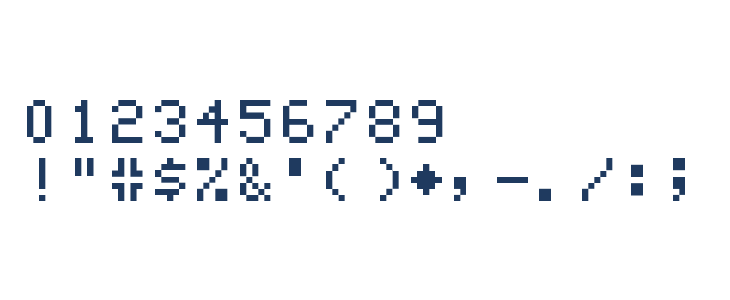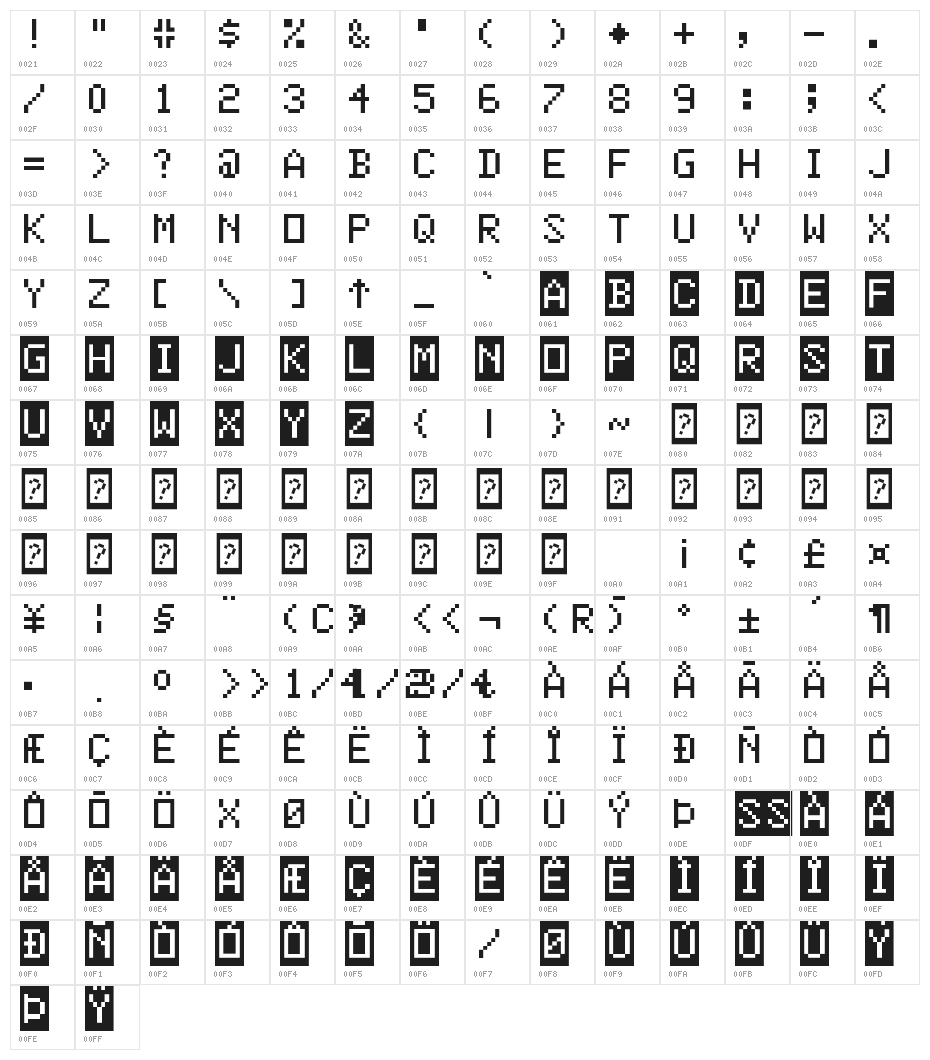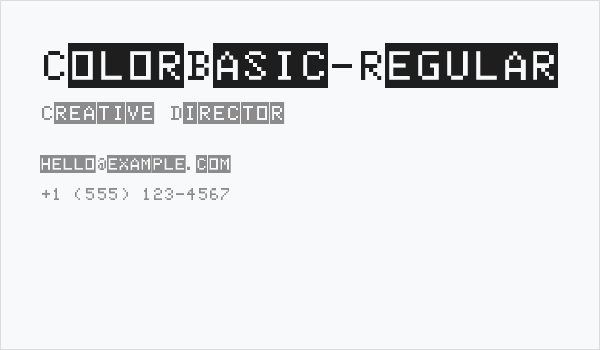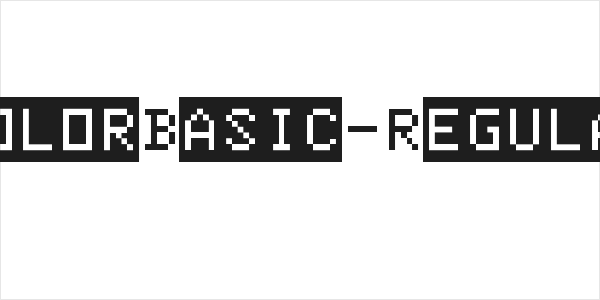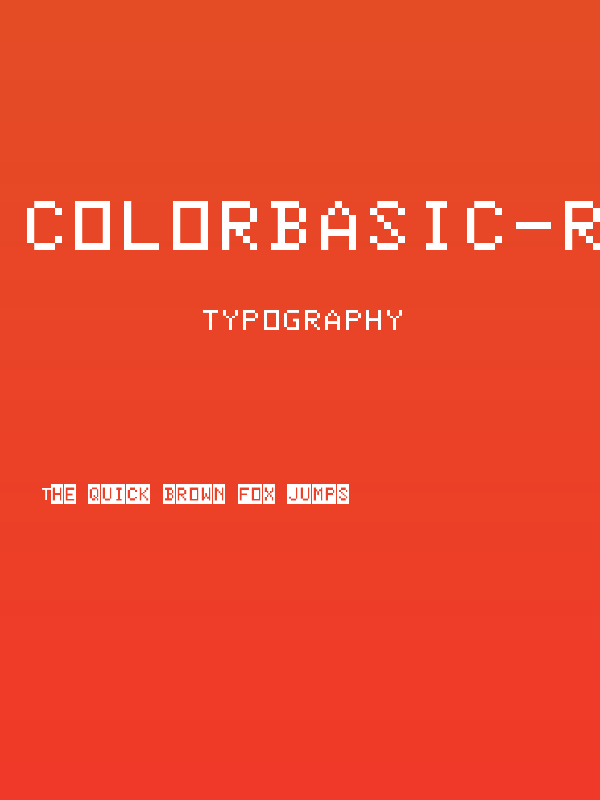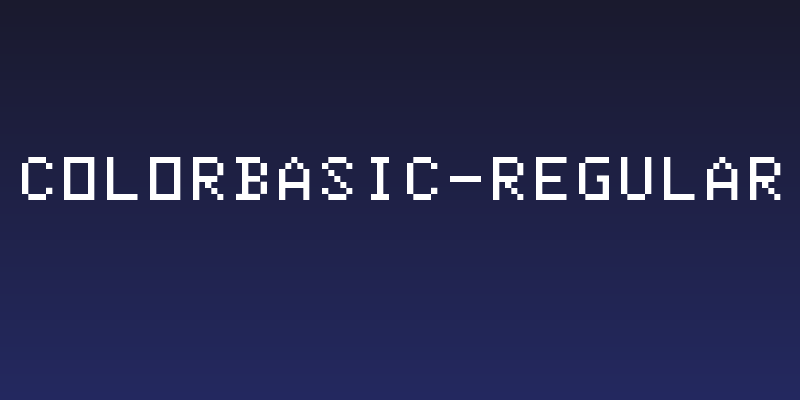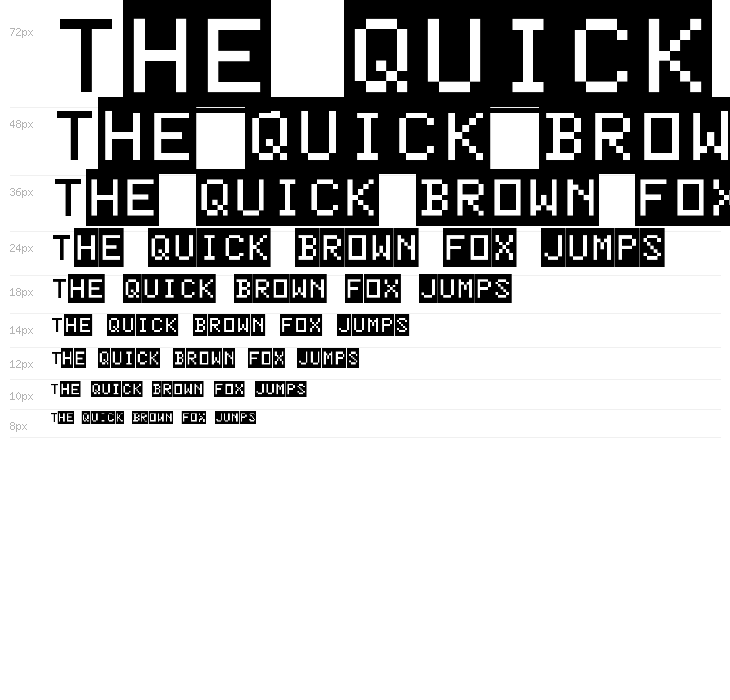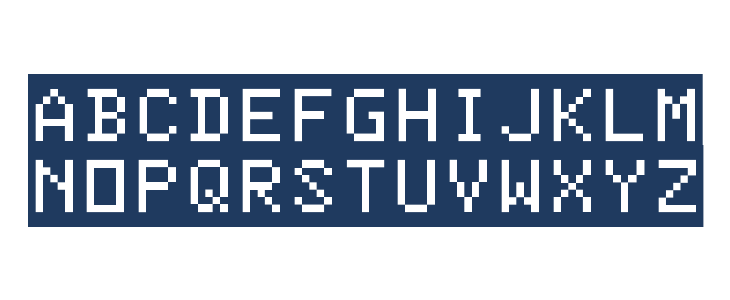
ColorBasic-Regular Font
ColorBasic-Regular Description
This font features a pixelated, blocky design reminiscent of classic video game typography. Each character is composed of a grid-like structure, giving it a retro, digital appearance. The uppercase and lowercase letters maintain a consistent height, contributing to a uniform look. The numerals and special characters follow the same pixelated style, ensuring visual coherence across all elements. This font's distinct, nostalgic aesthetic makes it ideal for projects that aim to evoke a sense of vintage computing or gaming culture.
| Overall Style | Vintage |
| Use Case | Logos, Headlines, Digital Art |
| Proposed Projects | Ideal for retro video game designs, digital art projects, tech-themed posters, and nostalgic branding. |